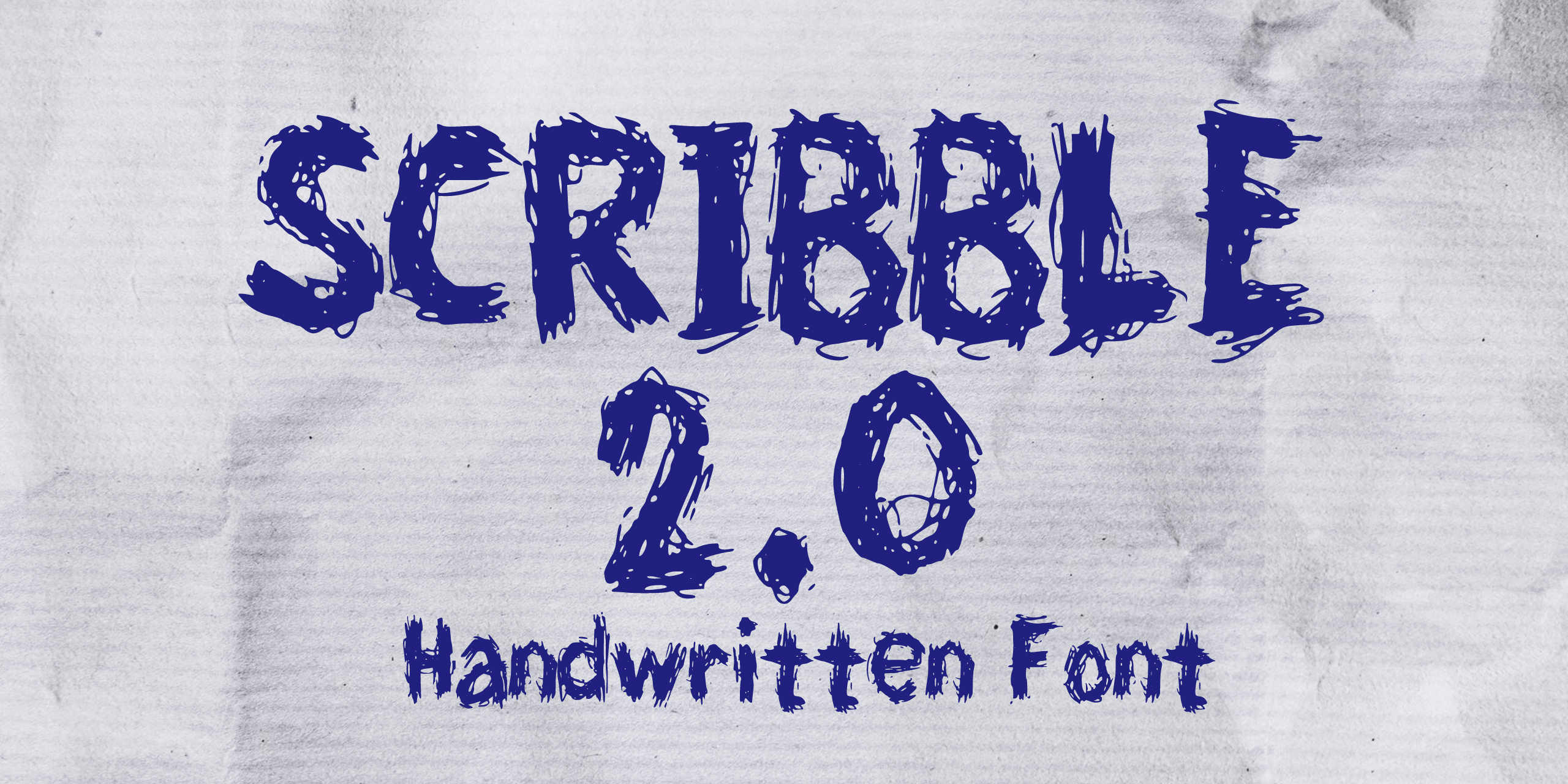
Scribble 2.0 Font is perfect for creative sketching apps, digital design tools, artistic note-taking interfaces, brainstorming materials, creative workshops, artistic social media posts, informal educational content, and expressive personal branding projects.
What makes Scribble 2.0 Font exciting is its evolved digital spontaneity that captures the authentic energy of modern creative sketching through enhanced hand-drawn letterforms. The upgraded irregular flow and digital-optimized imperfections create an atmosphere of creative freedom and artistic expression that resonates with contemporary digital artists and designers.
Scribble 2.0 Font family includes regular, bold, light, rough, and smooth versions, plus creative symbols, artistic ornaments, and sketching decorative elements that enhance the digital drawing typography experience with authentic creative spontaneity.
Unleash digital creativity with Scribble 2.0 Font Free Download, the ultimate evolution of handwritten expression optimized for modern creative applications. This innovative typeface embodies the spirit of digital artistry through letterforms that seem drawn with the latest stylus technology and refined through countless creative iterations. The expertly preserved spontaneity features enhanced readability while maintaining the authentic irregularities that make every word feel like a personal artistic statement rather than standardized digital text. Creative professionals and digital artists consistently select this font for projects requiring genuine connection to the creative process combined with contemporary digital functionality that works seamlessly across all modern platforms. Its comprehensive collection of artistic elements provides unlimited possibilities for creating memorable creative experiences that celebrate the evolution of hand-drawn expression in the digital age. Experience the liberating power of evolved sketching typography that transforms standard digital communications into expressions of creative authenticity, establishing your brand as a pioneer of digital artistic expression in today's rapidly advancing creative technology landscape where spontaneity meets sophistication.